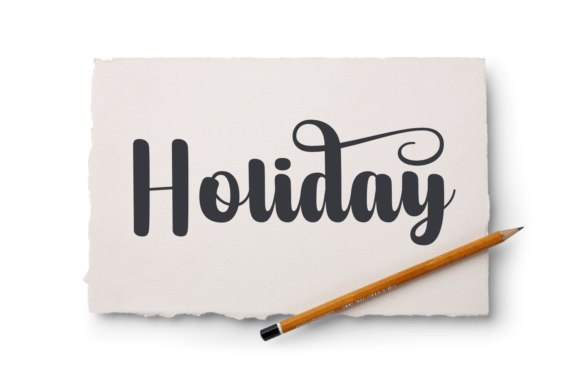
Belisya Font: The Perfect Blend of Playful Charm and Modern Flair
In the world of typography, fonts play a crucial role in conveying the tone and personality of a brand. With the vast array of fonts available, finding the perfect one that captures the essence of your brand can be a daunting task. However, if you’re looking for a font that exudes playful charm and modern flair, look no further than Belisya Font. This bold script font has been making waves in the design community, and for good reason. In this article, we’ll delve into the features, benefits, and uses of Belisya Font, and explore why it’s becoming a favorite among designers.
What Makes Belisya Font Stand Out?
Belisya Font is a bold script font that seamlessly fuses playful charm with modern flair. Its thick strokes, expressive swashes, and hand-lettered elegance make it a perfect choice for designers looking to create eye-catching logos, product labels, t-shirt designs, and social media graphics. The font’s unique combination of fluid curves and strong presence ensures it stands out in both digital and print projects.
- Thick Strokes: Belisya Font features thick strokes that give it a bold and confident look. This makes it perfect for headlines, titles, and any design element that needs to grab attention.
- Expressive Swashes: The font’s expressive swashes add a touch of elegance and sophistication, making it suitable for high-end brands and luxury products.
- Hand-Lettered Elegance: Belisya Font’s hand-lettered elegance gives it a personal and unique touch, making it perfect for designers looking to create custom designs that stand out from the crowd.
The Many Uses of Belisya Font
Belisya Font is a versatile font that can be used in a variety of design projects. Here are some of the many uses of this amazing font:
- Logos: Belisya Font is perfect for creating eye-catching logos that make a statement. Its bold strokes and expressive swashes make it suitable for brands that want to convey confidence and elegance.
- Product Labels: The font’s hand-lettered elegance and thick strokes make it perfect for product labels that need to stand out on store shelves.
- T-Shirt Designs: Belisya Font is a great choice for t-shirt designs that require a bold and eye-catching font. Its playful charm and modern flair make it perfect for designs that need to make a statement.
- Social Media Graphics: The font’s versatility and elegance make it suitable for social media graphics, including Facebook posts, Instagram stories, and Twitter headers.
The Benefits of Using Belisya Font
Belisya Font offers a range of benefits that make it a popular choice among designers. Here are some of the advantages of using this amazing font:
- Unique and Personal: Belisya Font’s hand-lettered elegance gives it a unique and personal touch, making it perfect for designers looking to create custom designs.
- High Impact: The font’s thick strokes and expressive swashes make it perfect for designs that need to make a statement.
- Versatile: Belisya Font is a versatile font that can be used in a variety of design projects, from logos and product labels to t-shirt designs and social media graphics.
- Modern and Elegant: The font’s modern flair and elegant swashes make it suitable for high-end brands and luxury products.
Tips for Using Belisya Font
While Belisya Font is an amazing font, it can be challenging to use, especially for beginners. Here are some tips for using this font effectively:
- Use it Sparingly: Belisya Font is a bold font that can be overwhelming if used excessively. Use it sparingly to create emphasis and draw attention to specific design elements.
- Pair it with Simple Fonts: Belisya Font’s bold strokes and expressive swashes can be overwhelming when paired with other bold fonts. Pair it with simple fonts to create contrast and visual interest.
- Experiment with Colors: Belisya Font looks great in a variety of colors. Experiment with different colors to find the perfect combination that suits your brand.
In conclusion, Belisya Font is a bold script font that fuses playful charm with modern flair. Its thick strokes, expressive swashes, and hand-lettered elegance make it a perfect choice for eye-catching logos, product labels, t-shirt designs, and social media graphics. Whether you’re aiming for a trendy, handcrafted vibe or bold brand identity, Belisya Font delivers high impact with a personal twist. With its versatility, elegance, and unique touch, Belisya Font is sure to become a favorite among designers.